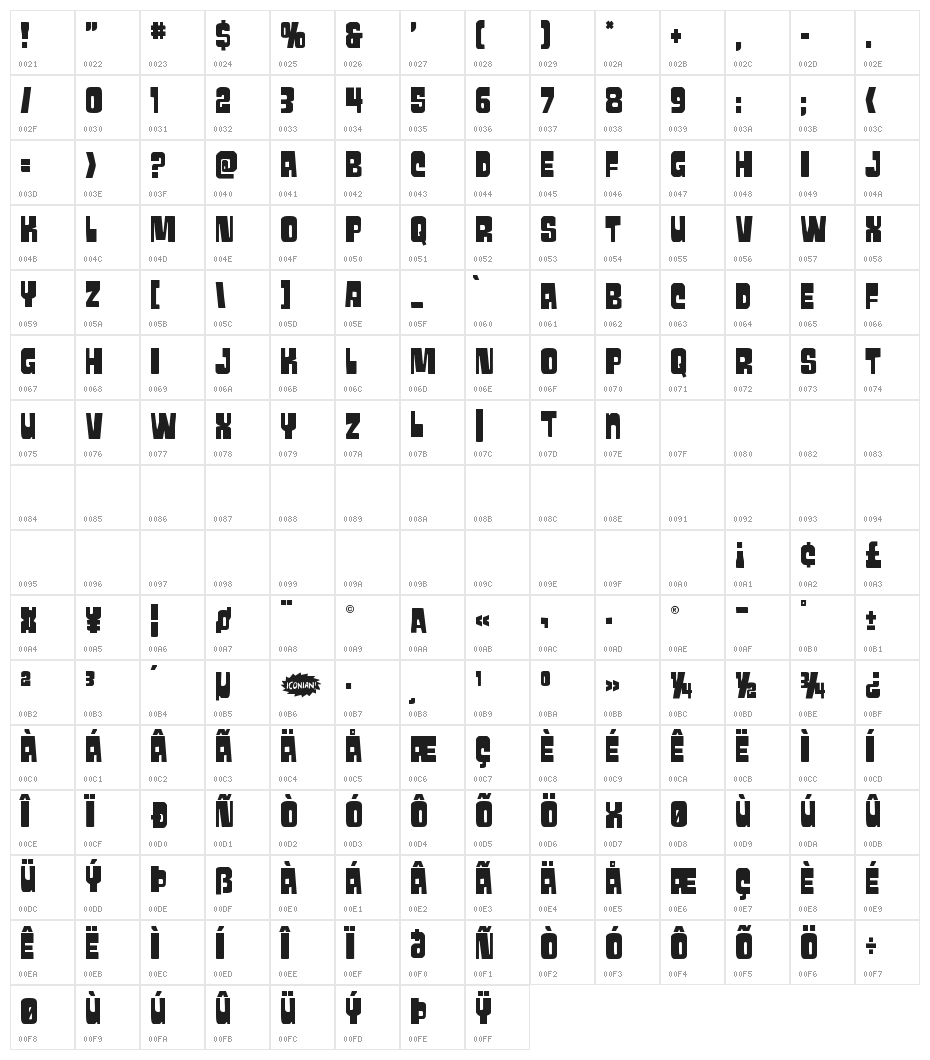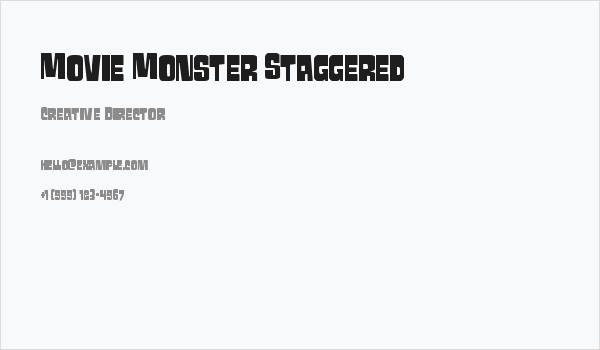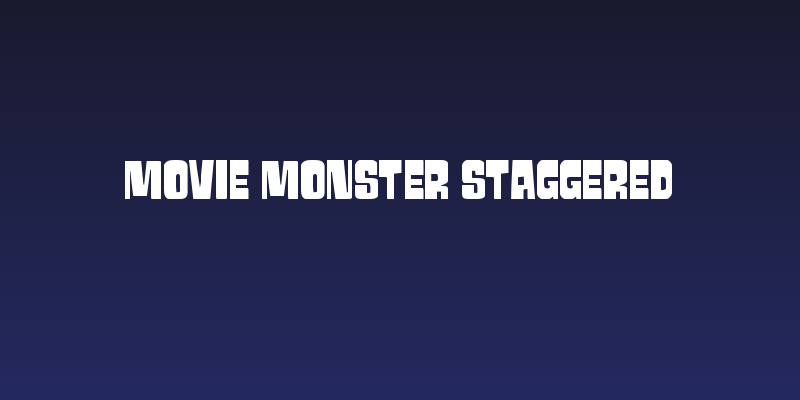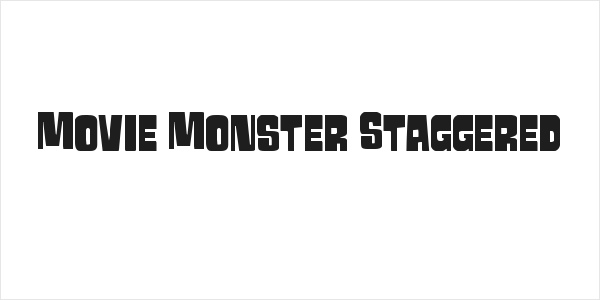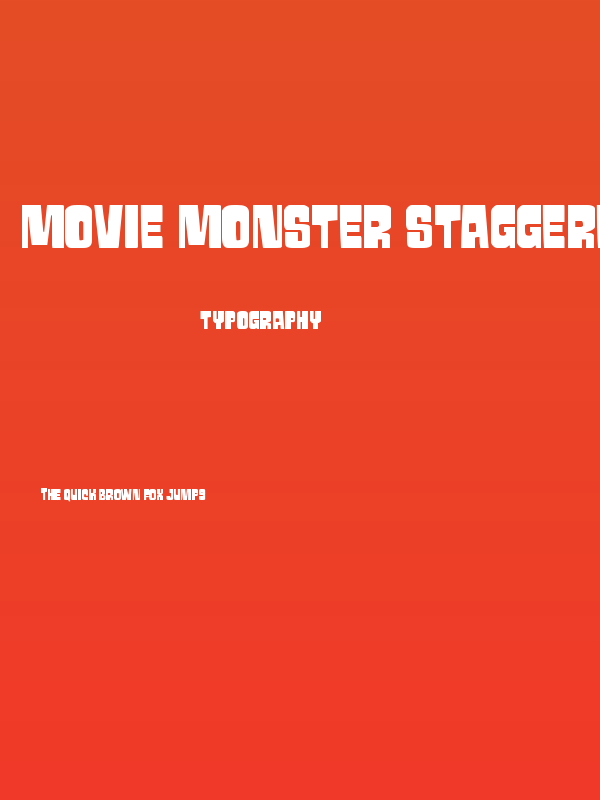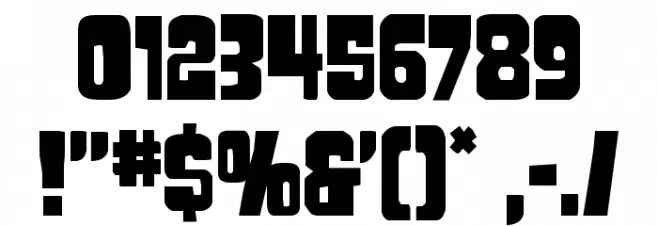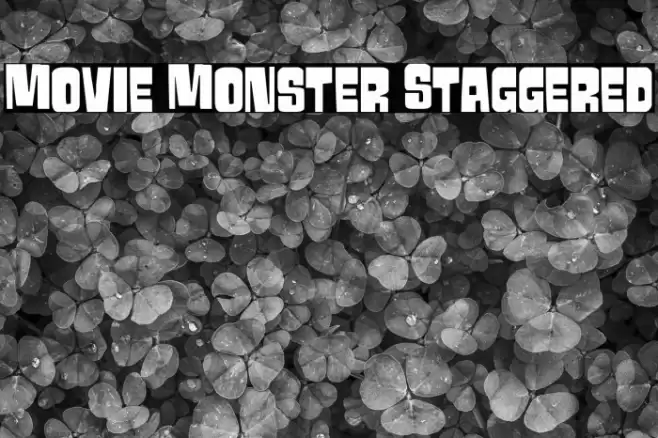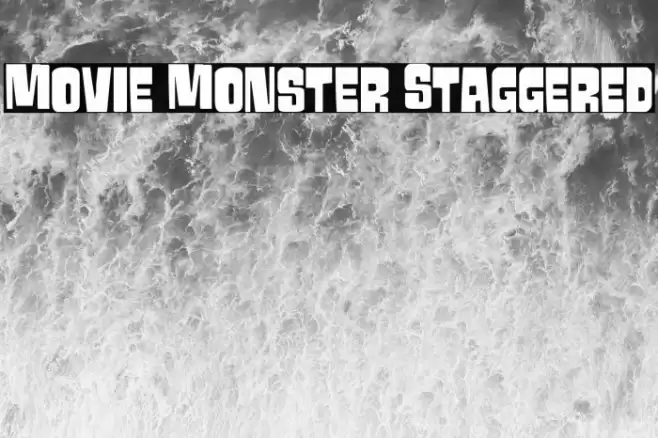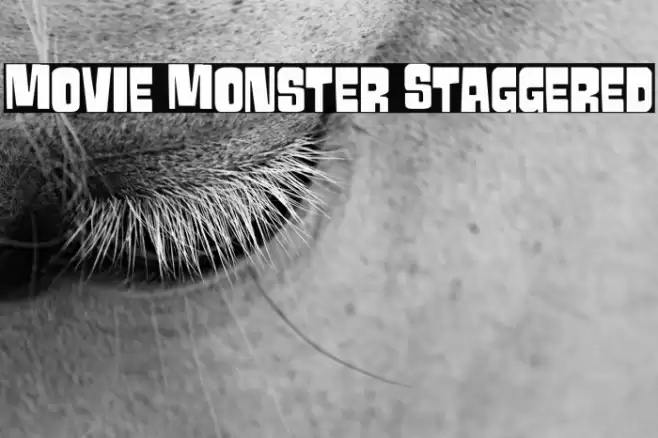
Movie Monster Staggered Font
This font features a bold and dramatic style, characterized by its thick, blocky letterforms with uneven edges that give it a rugged, monstrous appearance. The uppercase and lowercase letters maintain a consistent weight, creating a cohesive look across the alphabet. The numerals and special characters follow the same bold design, ensuring uniformity throughout. The font's unique, staggered design elements make it stand out, adding a sense of movement and energy. Its high contrast and wide character spacing enhance readability while maintaining its distinctive style.
| Proposed Projects | Ideal for horror movie posters, Halloween event flyers, video game titles, and any project requiring a bold, eye-catching typeface. |